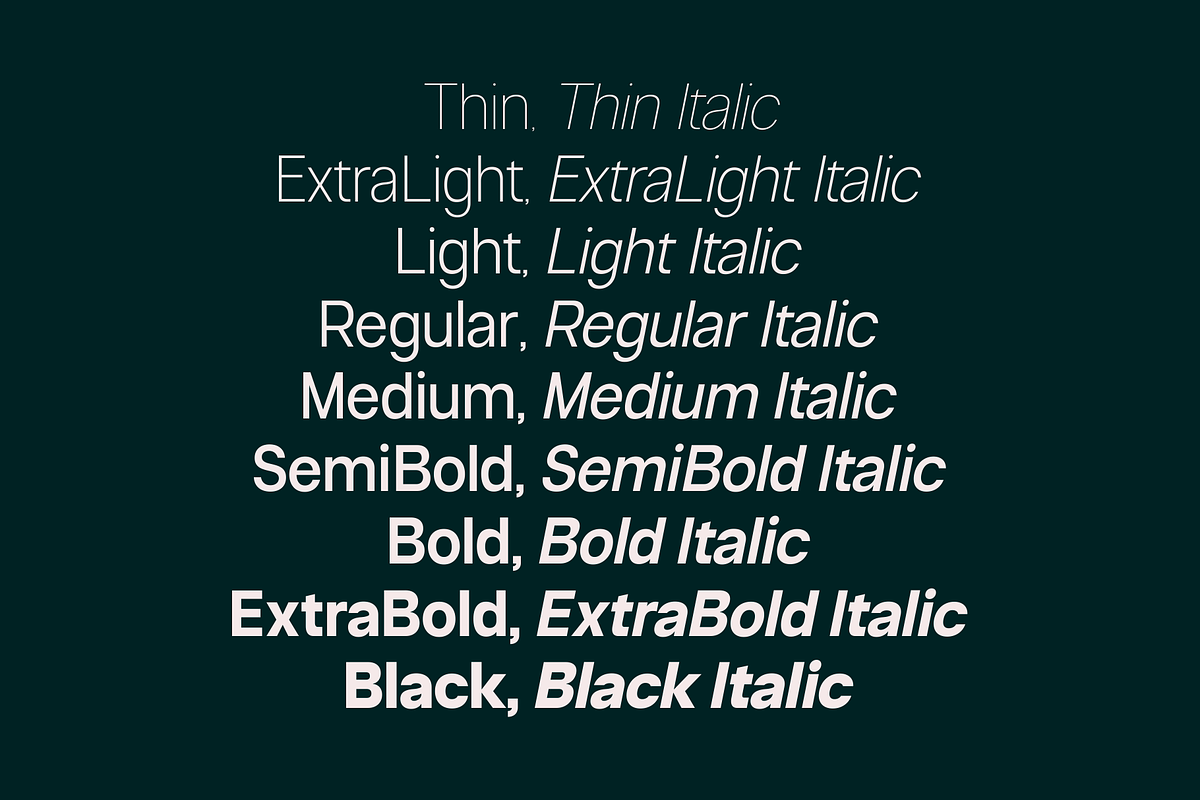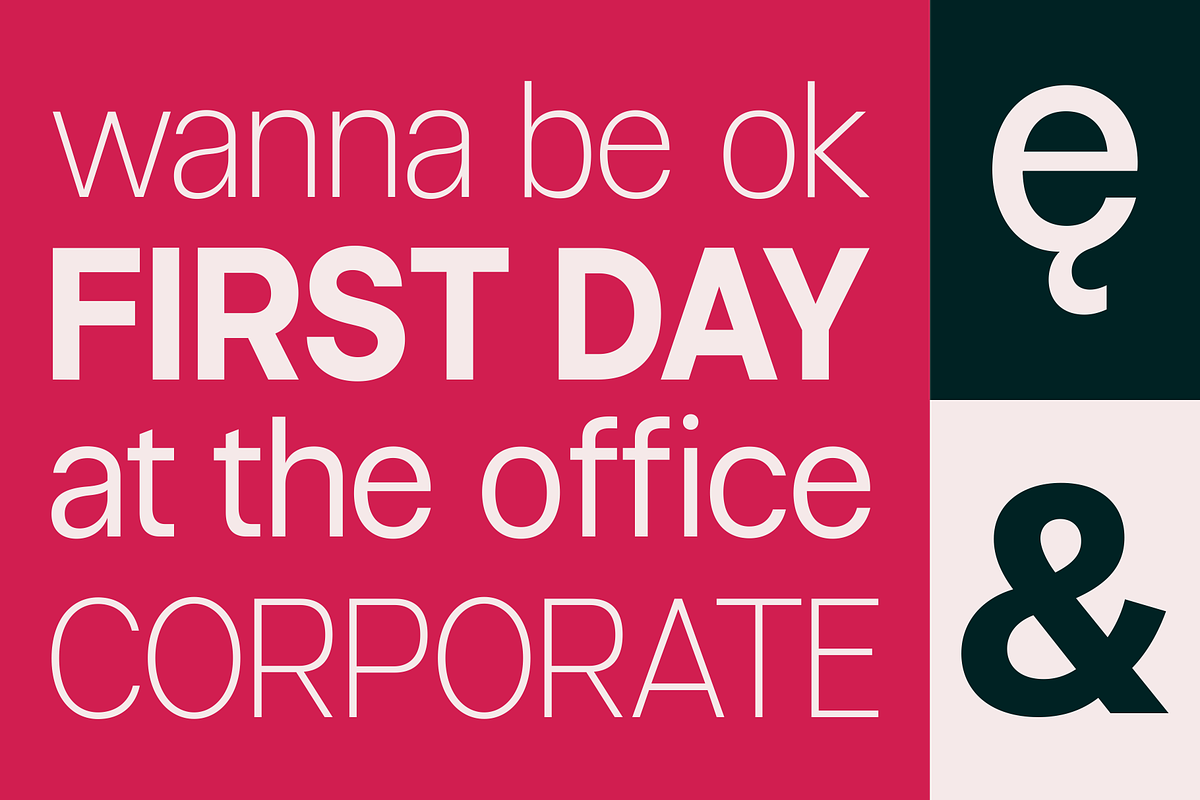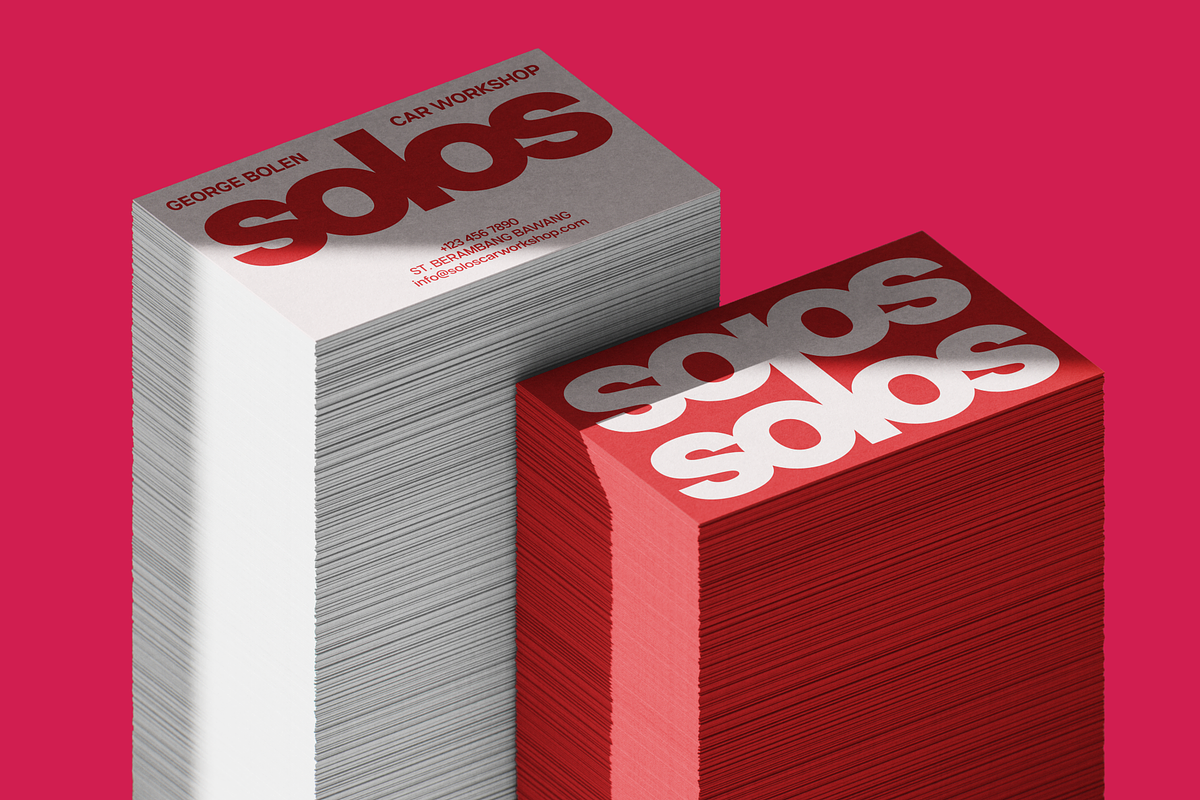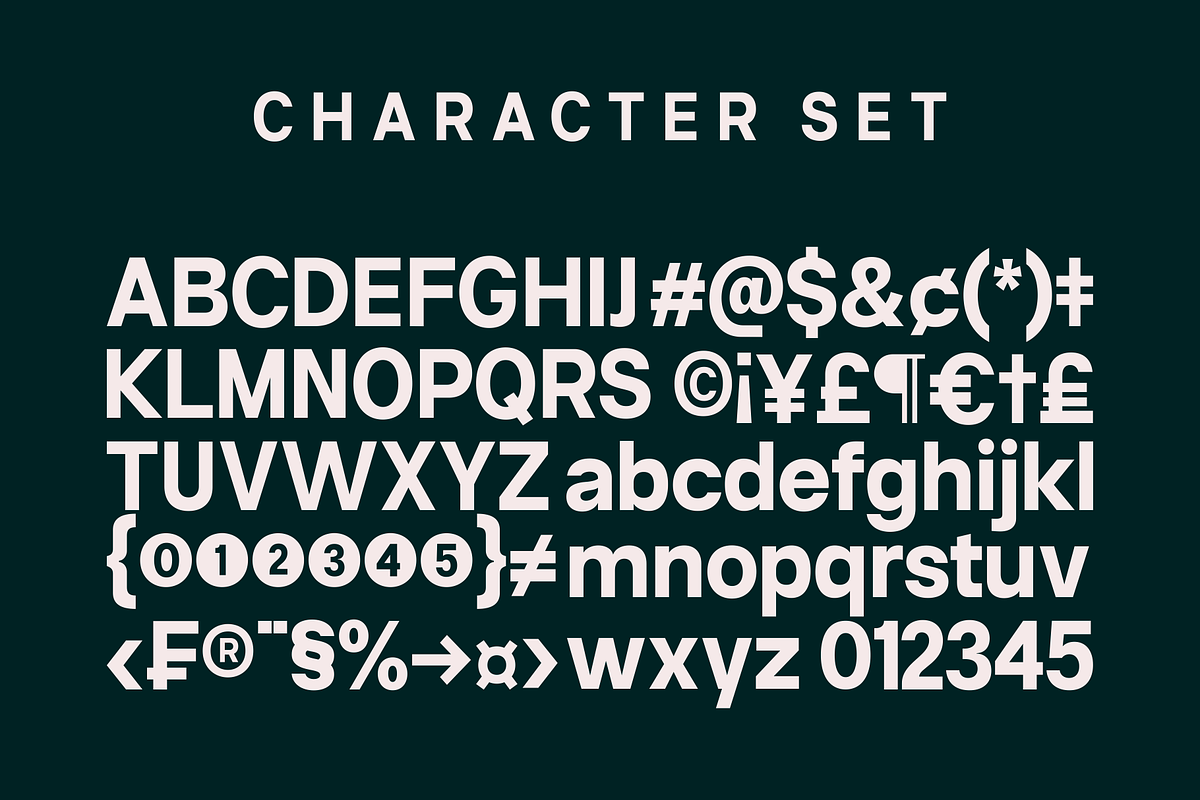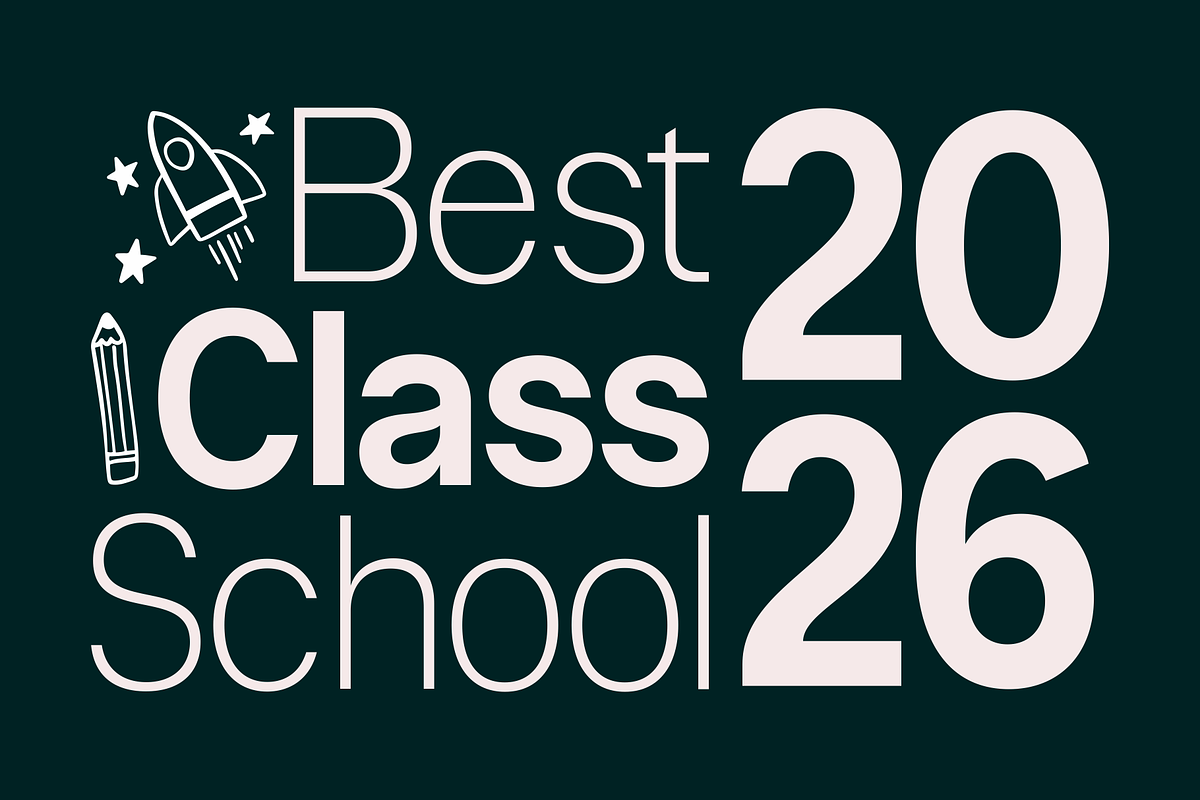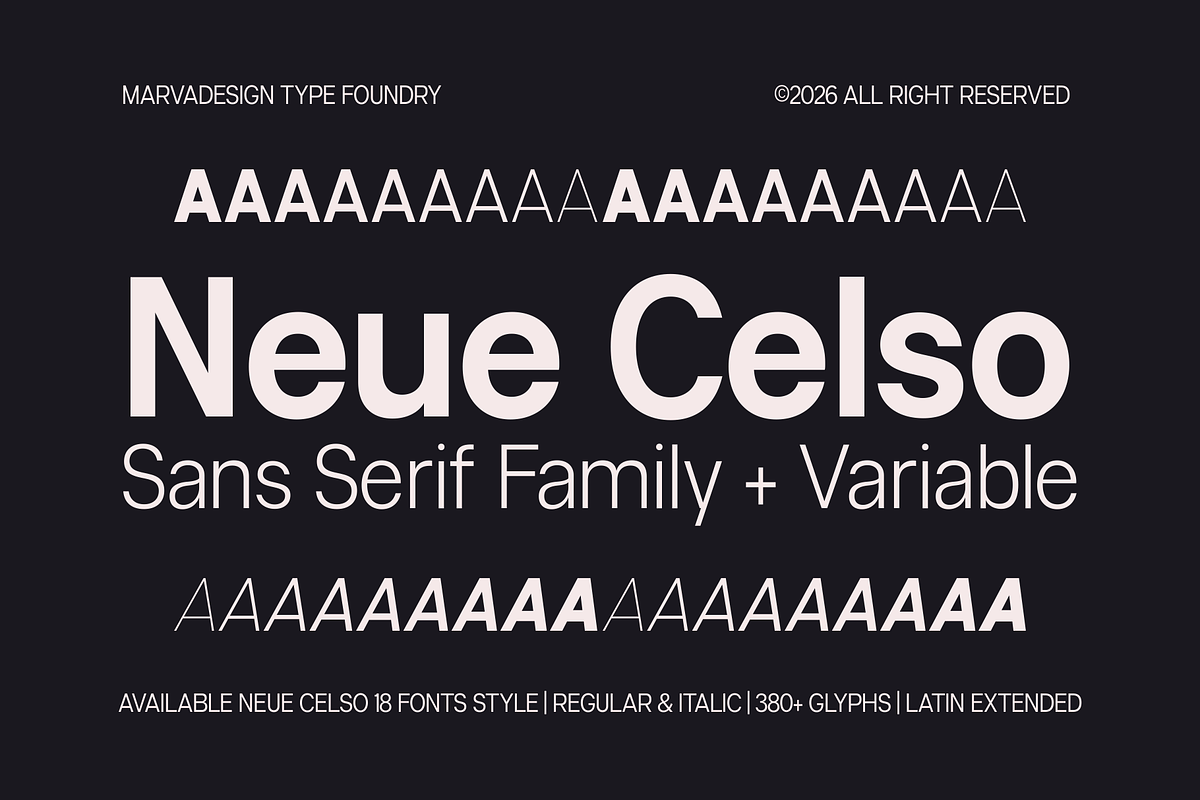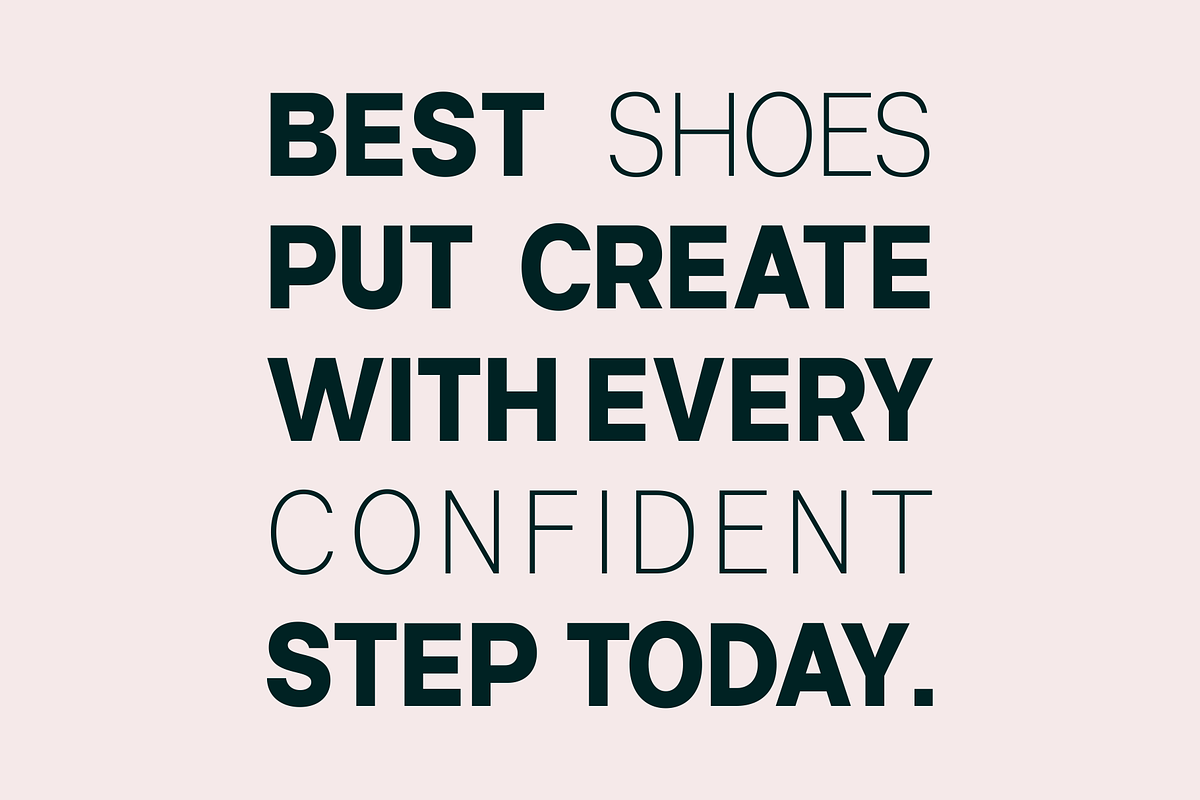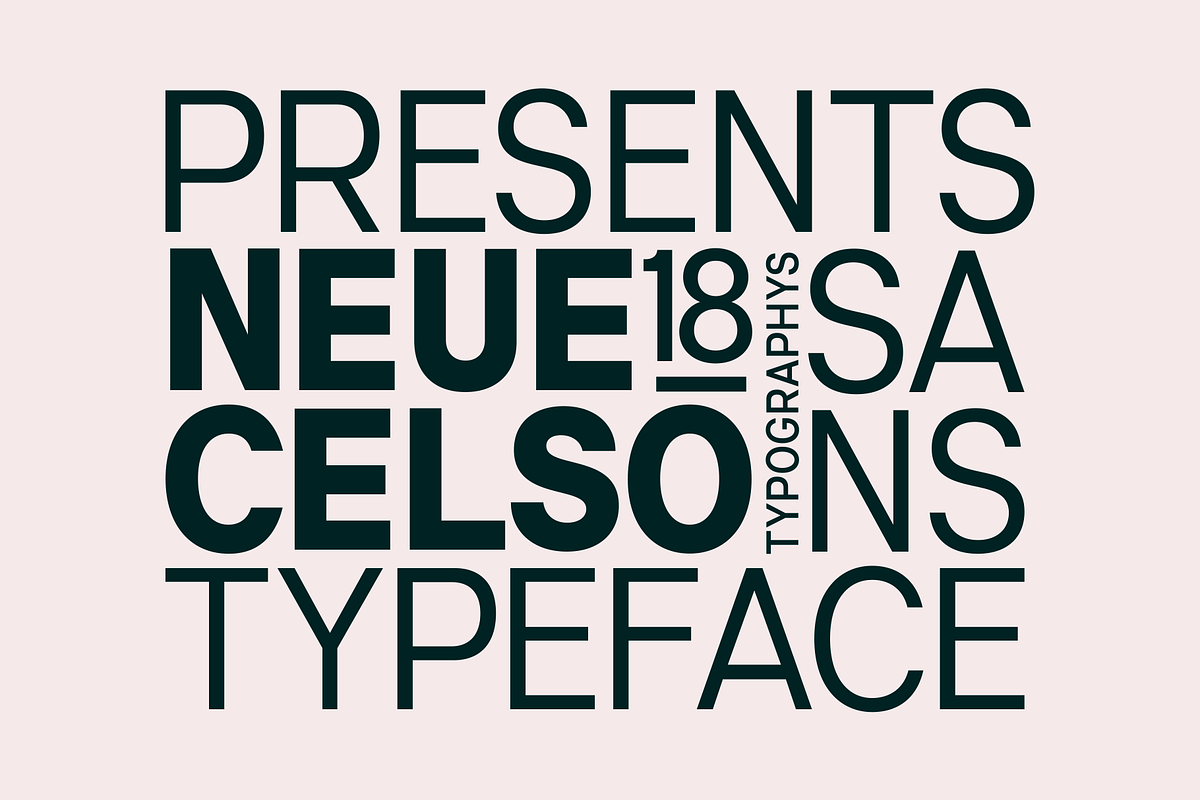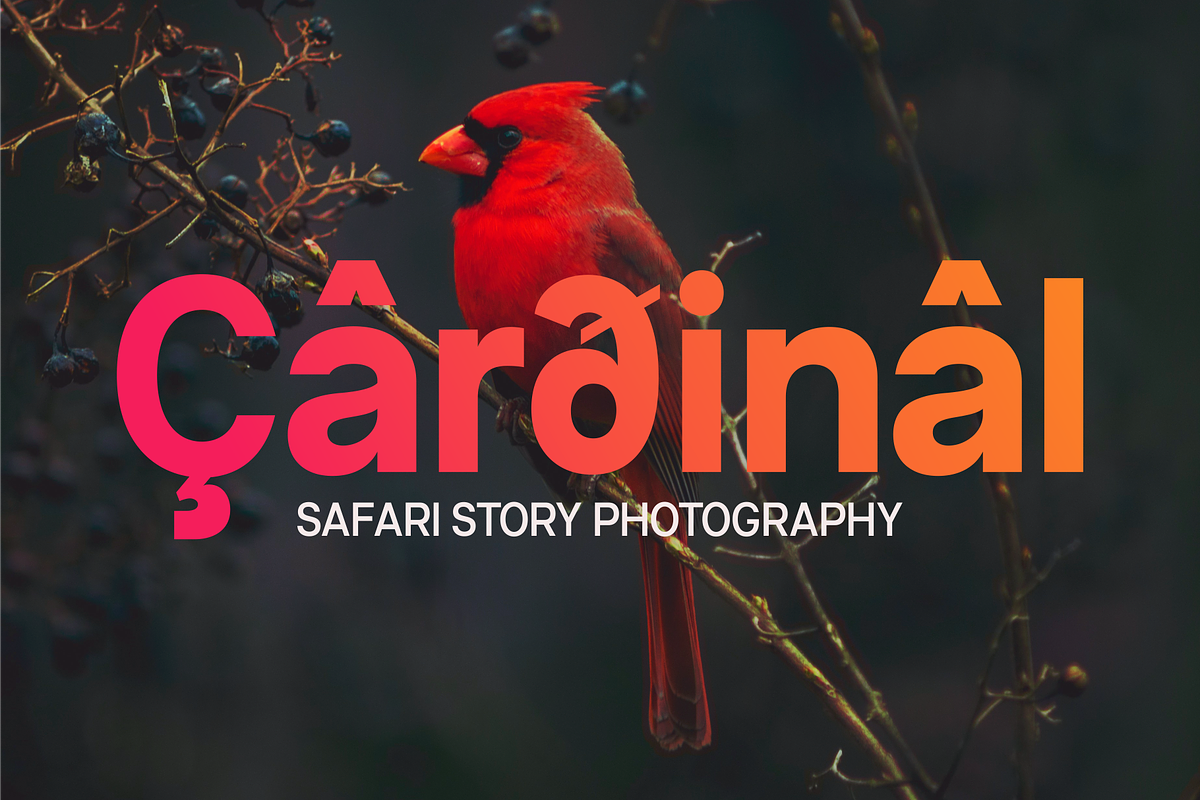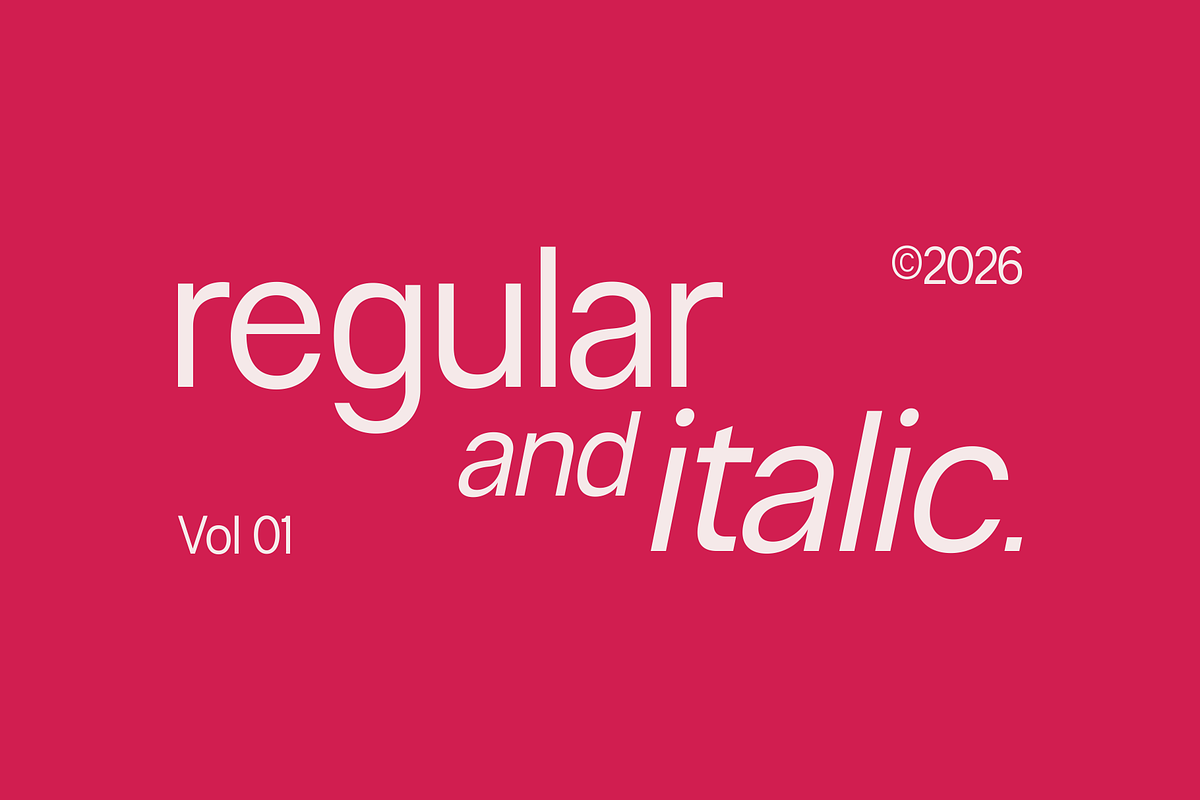
Neue Celso - Family Sans Serif
Neue Celso is a contemporary geometric sans serif typeface family that blends precision, simplicity, and flexibility into a highly functional design system. Built on a clean geometric foundation with balanced proportions, it presents a modern look that feels both professional and approachable. Each letterform has been refined to achieve exceptional clarity across all weights, making it equally effective.
Designed as a complete family of 18 styles—from Thin to Black, including a matching Italic companion—Neue Celso offers incredible flexibility for building typographic hierarchies. The typeface features generous proportions, balanced spacing, and carefully designed stroke contrast, ensuring excellent legibility at both display and text sizes. The Italic style introduces a subtle, dynamic rhythm without sacrificing the clean geometric construction, adding emphasis and elegance while maintaining consistency across the family.
With over 380 glyphs and Latin Extended support, Neue Celso is designed for international branding and multilingual communications. It works well in bold headlines, minimalist editorial compositions, corporate presentations, or modern UI systems.
The styles include
Thin
Thin Italic
ExtraLight
ExtraLight Italic
Light
Light Italic
Regular Italic
Medium
Medium Italic
SemiBold
SemiBold Italic
Bold
Bold Italic
Extra Bold
Extra Bold Italic
Black
Black Italic
Variable